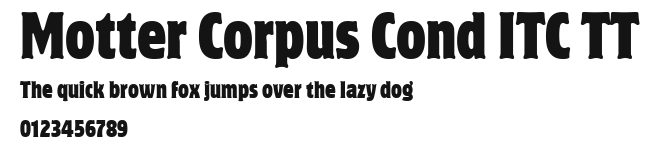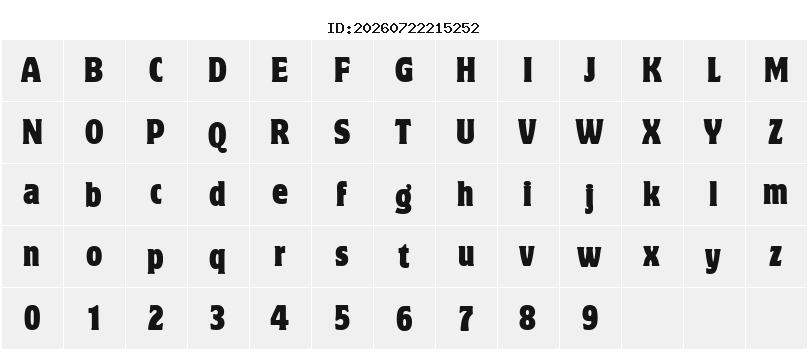
• Font Name: Motter Corpus Cond ITC TT
About Motter Corpus Cond ITC TT.ttf
Motter Corpus Cond ITC TT.ttf is a modern, elegant sans-serif font designed for ultimate readability and visual harmony. Perfect for branding, headlines, web design, and print materials.